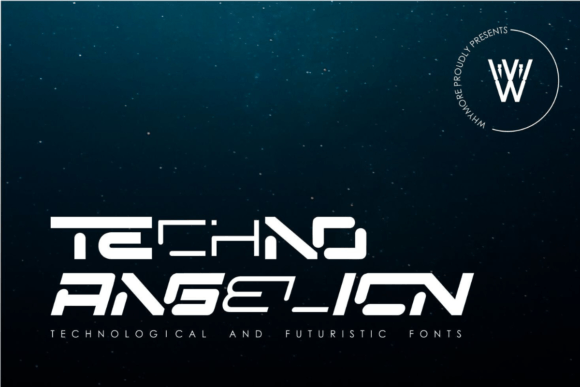
Brace yourself for the future of typography with Techno Angelion, the font that's out of this world. This sans serif font will take you to a reality where elegance and minimalism collide. Picture letters that dance with curves, ready to conquer the present and the future simultaneously. It's a font so luxurious and classy that it will elevate any project to new heights.
Imagine crafting a brand identity that stands out with Techno Angelion, making every design template a true masterpiece. Create invitations that feel like a portal to the future, and design calendars that carry the essence of timelessness. With posters and headlines adorned with this font, you'll captivate every eye. Brochures and promotional tools will gain a new level of sophistication, leaving an indelible mark on your audience.
The versatility of Techno Angelion is its superpower. It's like a chameleon, effortlessly transforming into the perfect fit for headlines, logos, and lettering. Its legibility ensures that your message will hit home with clarity, creating a visual feast that keeps them engaged.
If you seek a font that embodies the future and sophistication, Techno Angelion is your destiny. Its futuristic style with a Y2K twist will teleport your designs into another dimension. It's a font that will never be confined by time, a testament to your visionary approach to design.